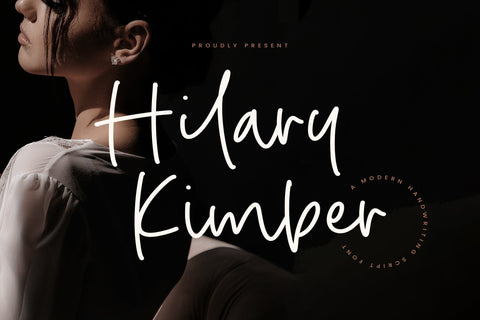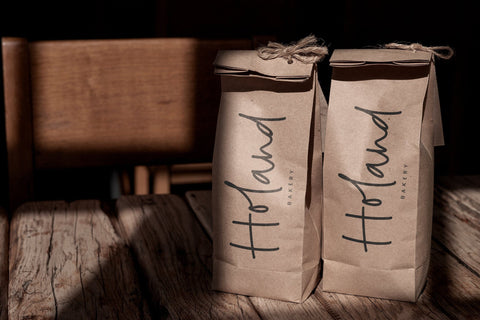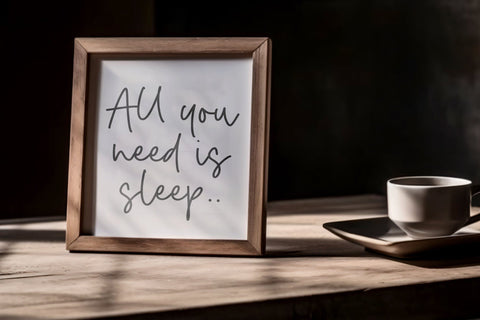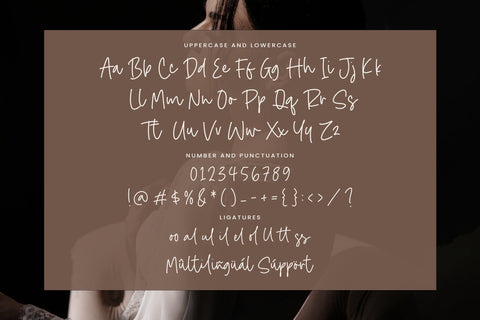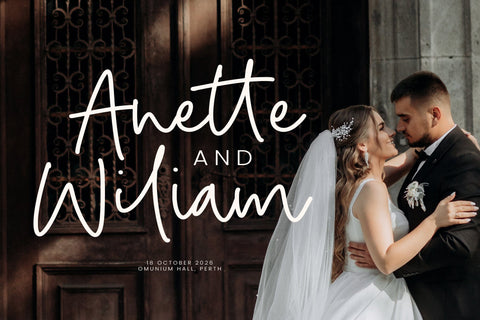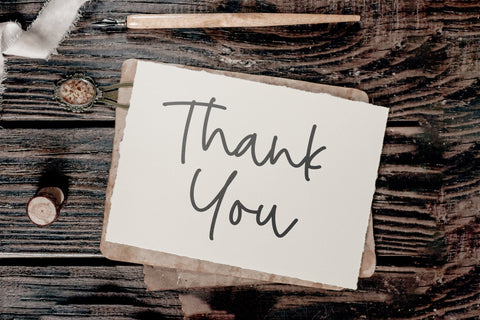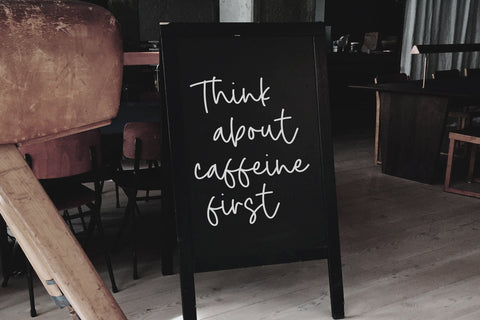
Hilary Kimber - Modern Handwriting Script Font
Hilary Kimber is a Modern Handwriting Script Font
This font is a contemporary handwriting script font that exudes elegance and charm. With its fluid strokes and playful curves, it captures the essence of personal touch and creativity. Ideal for invitations, branding, and social media, this font blends sophistication with a casual feel, making it perfect for both formal and informal designs. Its versatility and readability ensure that it stands out while remaining approachable, adding a warm, inviting character to any project.
Hilary Kimber also supports multilingualism